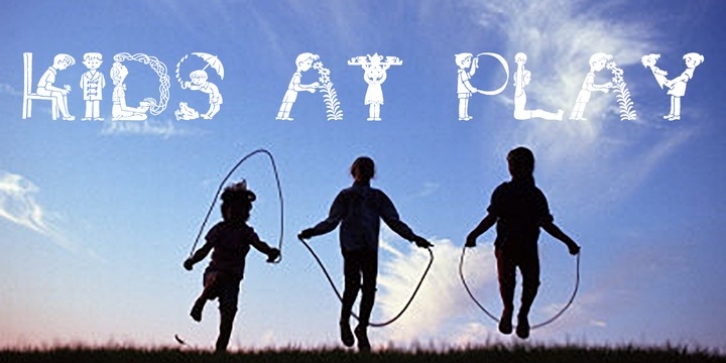
Kids at Play is a playful and curious font with children silhouettes in the form of letters. The letters/children are engaged in a variety of poses and activites. If you want to develop a text, story, or publication for or about children, this is a must-have font. Includes full set of accented characters.